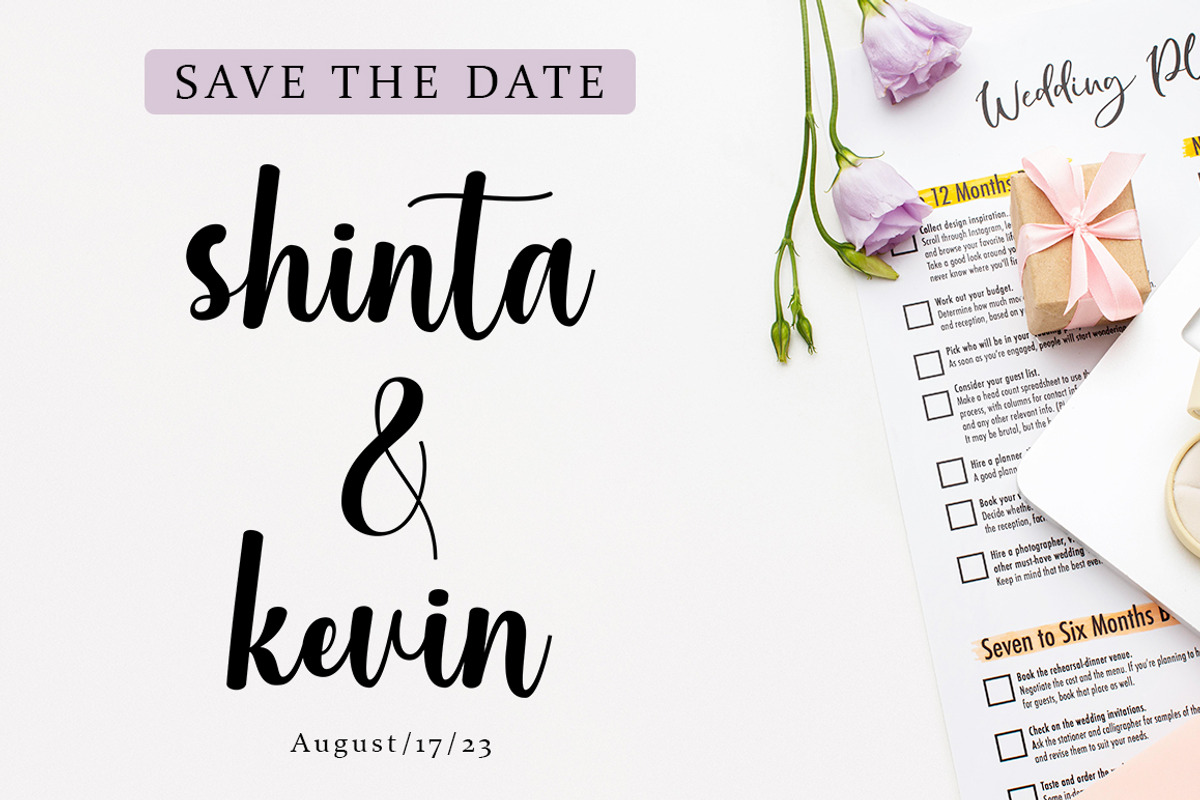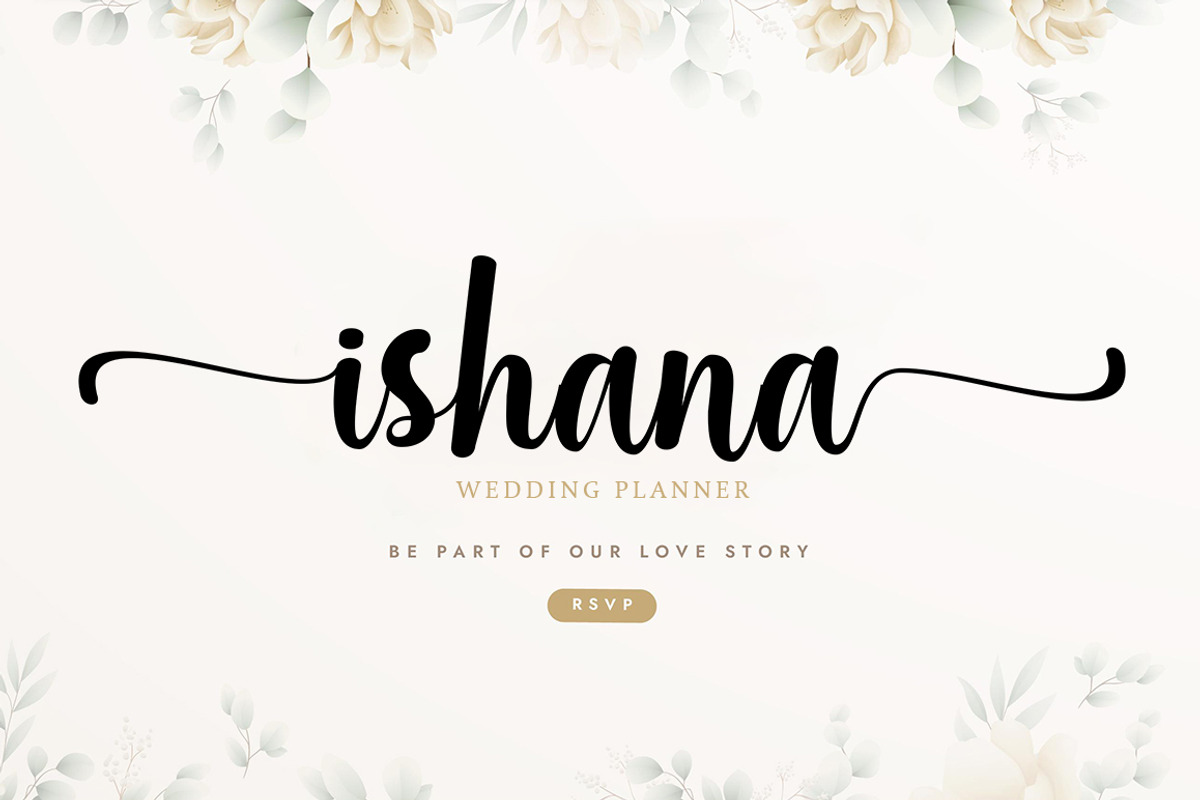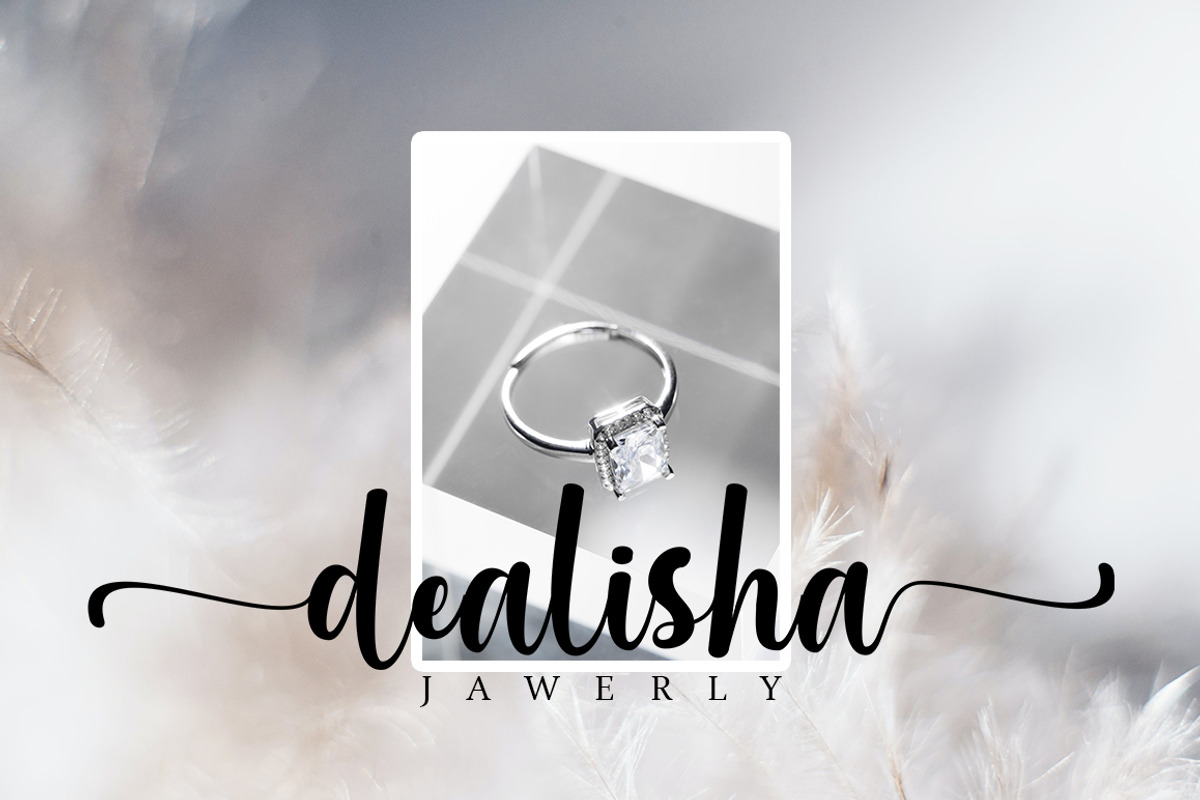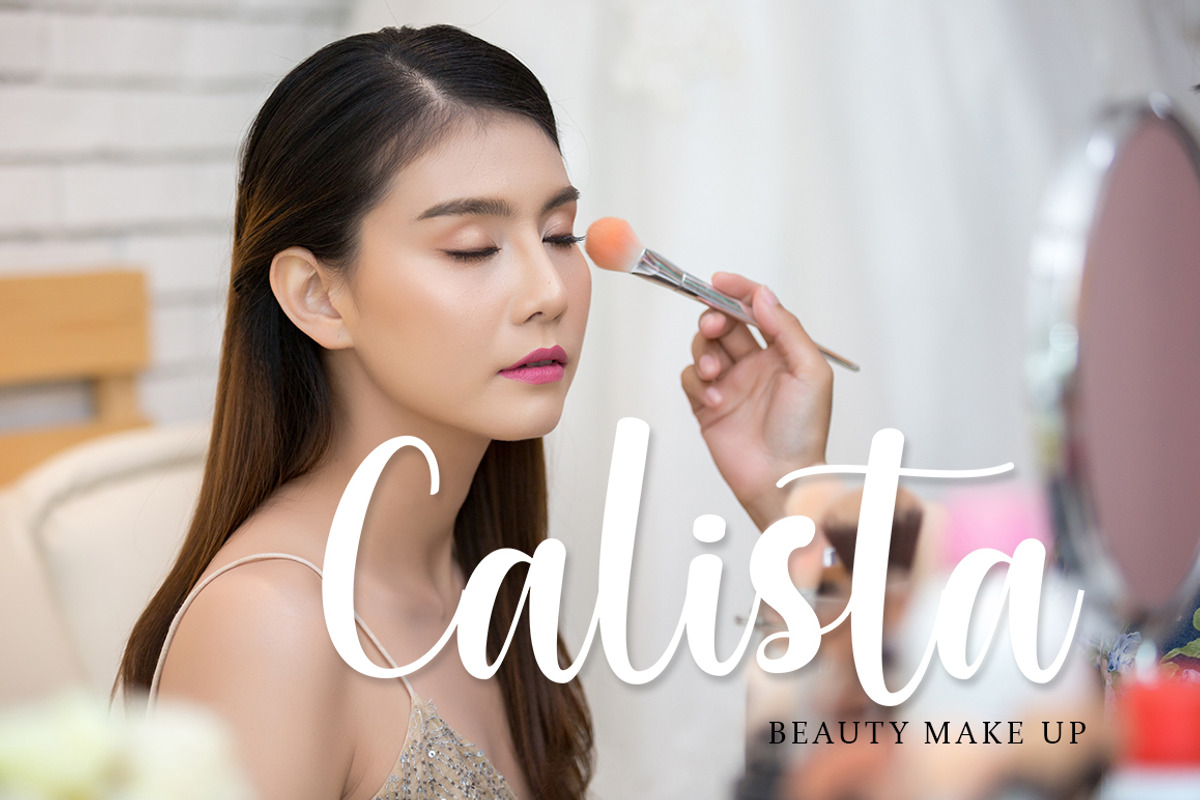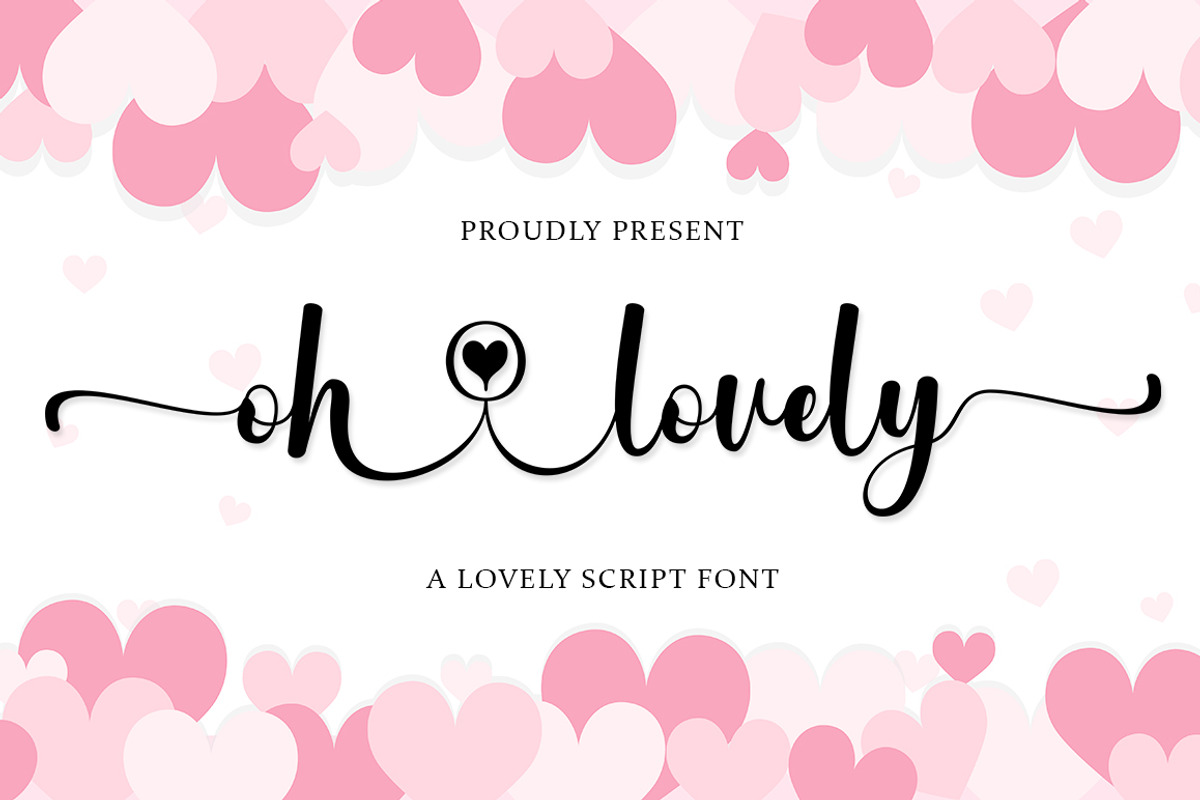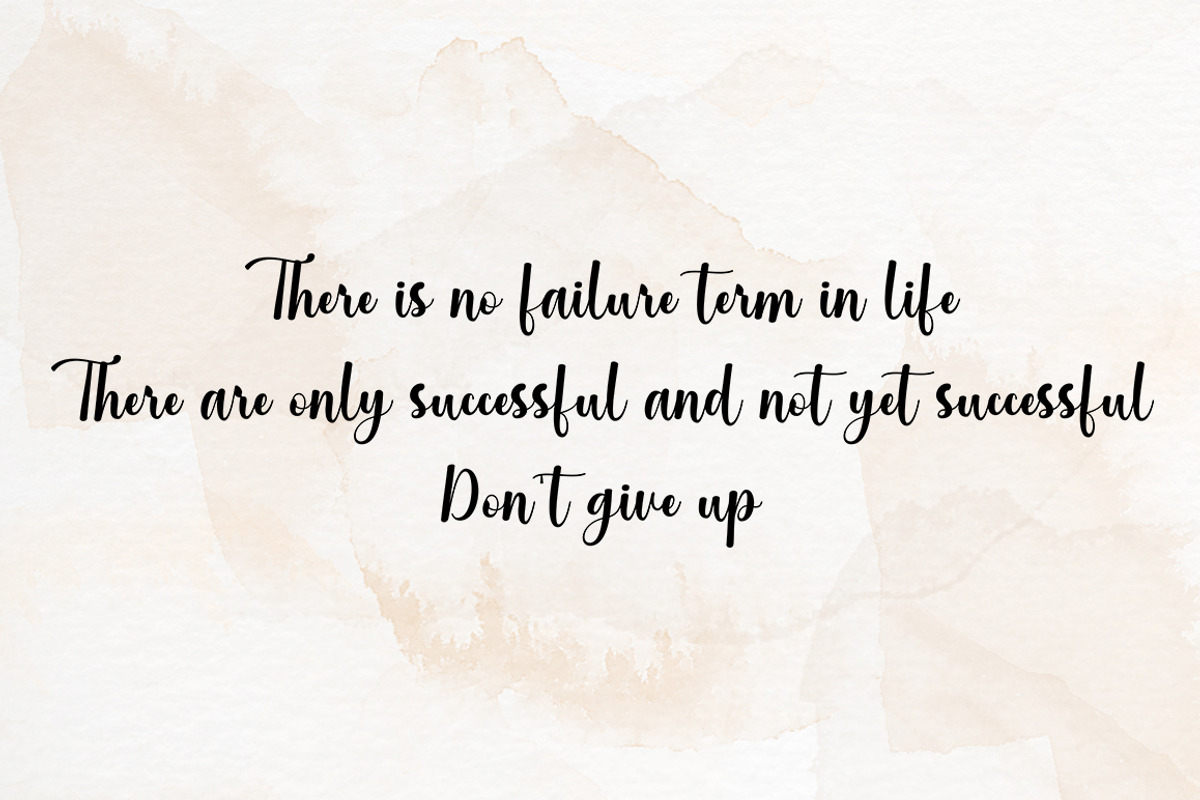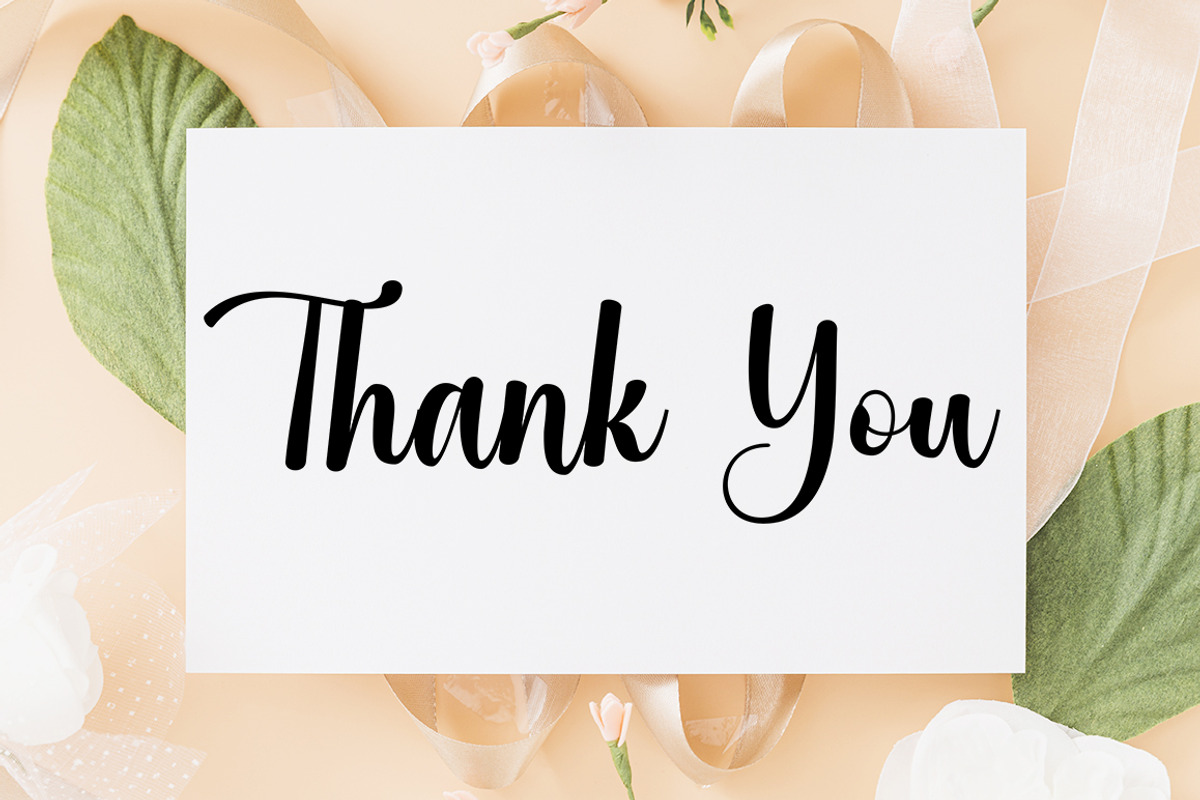
Oh lovely
More information about this Font Oh lovely, is a bouncy handwritten script font!
This font is perfect for quotes, shirt designs, websites, branding, kids designs, blogs, logos, invitations and more!
Lots of glyphs
Ligature